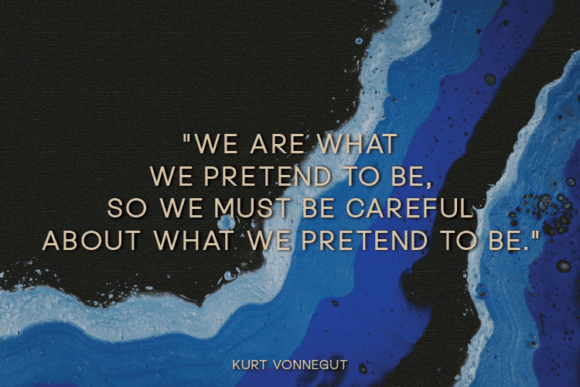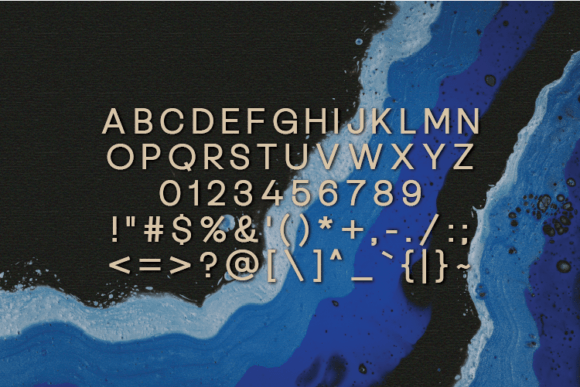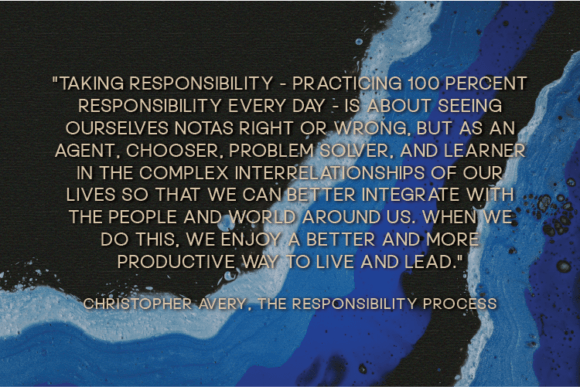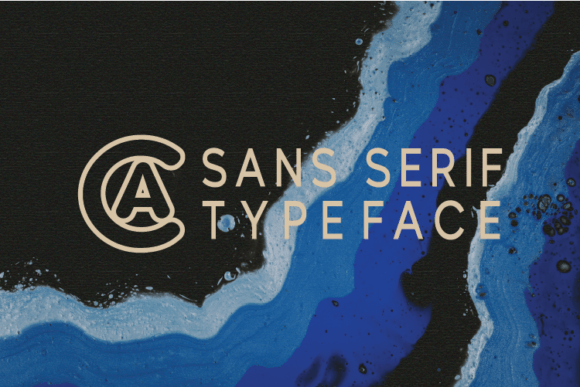
Dreaming Font: Elevate Your Designs with a Versatile, Modern, and Classy Sans Serif Font
Are you a designer or crafter looking for a font that can elevate your creative projects? Look no further than the Dreaming Font, a versatile, modern, and classy sans serif font perfect for a wide range of applications. From logos and weddings to invitations, quotes, advertisements, print, magazines, and more, this font is designed to bring your most creative ideas to life.
What Makes Dreaming Font So Special?
Dreaming Font is a carefully crafted sans serif font that boasts a unique blend of modernity and sophistication. Its clean lines, elegant curves, and precise letter spacing make it perfect for designs that require a touch of class and refinement. Whether you’re working on a logo, a wedding invitation, or a magazine spread, this font is sure to impress.
Key Features of Dreaming Font
- Versatility: Dreaming Font is a highly versatile font that can be used in a wide range of applications, from digital designs to print materials.
- Modernity: With its clean lines and elegant curves, this font is perfect for modern designs that require a touch of sophistication.
- Classy: Dreaming Font is a classy sans serif font that exudes refinement and elegance, making it perfect for designs that require a high-end feel.
- Ease of use: This font is easy to read and works well in both large and small sizes, making it perfect for a wide range of applications.
Dreaming Font is a perfect choice for designers and crafters who want to add a touch of elegance and sophistication to their creative projects. Whether you’re working on a logo, a wedding invitation, or a magazine spread, this font is sure to impress. Its versatility and ease of use make it perfect for a wide range of applications, from digital designs to print materials.
Use Cases for Dreaming Font
- Logos: Create a lasting impression with a custom logo that features the Dreaming Font.
- Weddings: Make your wedding invitations, programs, and decorations truly special with this elegant font.
- Invitations: Create beautiful invitations for any occasion, from birthdays to graduations.
- Quotes: Add a touch of elegance to your quote designs with the Dreaming Font.
- Advertisements: Make your ads stand out with this modern and classy font.
- Print: Use the Dreaming Font in your print designs, from brochures to flyers.
- Magazines: Add a touch of sophistication to your magazine spreads with this elegant font.
Why Choose Dreaming Font?
There are many fonts to choose from, but Dreaming Font stands out from the rest. Here are just a few reasons why:
- Unique design: The Dreaming Font has a unique design that sets it apart from other sans serif fonts.
- High-quality: This font is crafted with precision and attention to detail, ensuring a high-quality design.
- Easy to use: The Dreaming Font is easy to read and works well in both large and small sizes.
- Versatile: This font can be used in a wide range of applications, from digital designs to print materials.